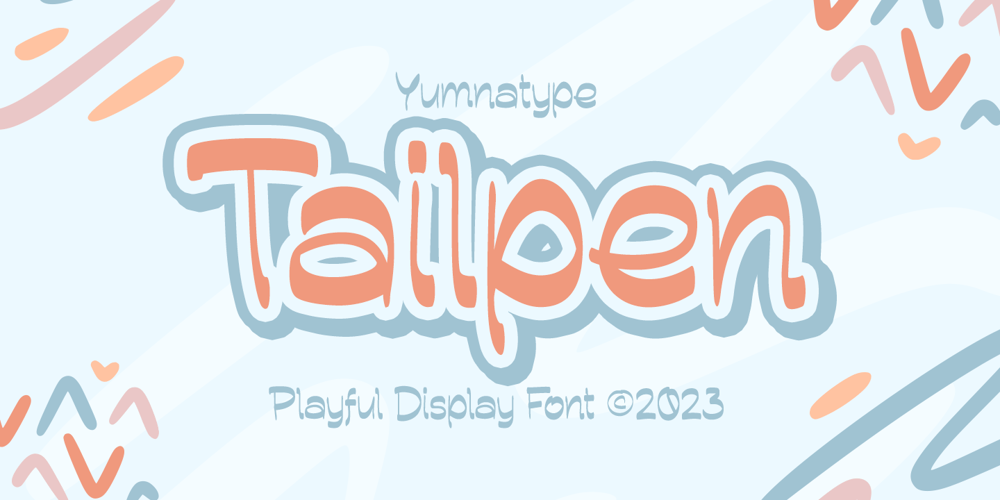
Tailpen Font Family was designed by Donis Miftahudin and published by Yumna Type. Tailpen contains 1 styles and family package options. It is a tough task to create a visual identity without using a characteristic, multipurpose font to represent your brand in order to look different, yet unexaggerating. For that reason, let us welcome Tailpen, the perfect balance of simplicity, charm, and boldness to live up your brand identity.Tailpen is a display font in simple, inclined square letter shapes to show charming, real, attractive nuances. It is greatly legible due to the simple shapes in high contrasts with which you can apply this font for various text sizes. It also gives you a clipart as a bonus and you can make use of the available features here as well.Features: Multilingual Supports PUA Encoded Numerals and Punctuations Tailpen fits best for various design projects, such as brandings, posters, banners, headings, magazine covers, quotes, printed products, merchandise, social media, etc. Find out more ways to use this font by taking a look at the font preview.Thanks for purchasing our fonts. Hopefully, you have a great time using our font. Feel free to contact us anytime for further information or when you have trouble with the font. Thanks a lot and happy designing.